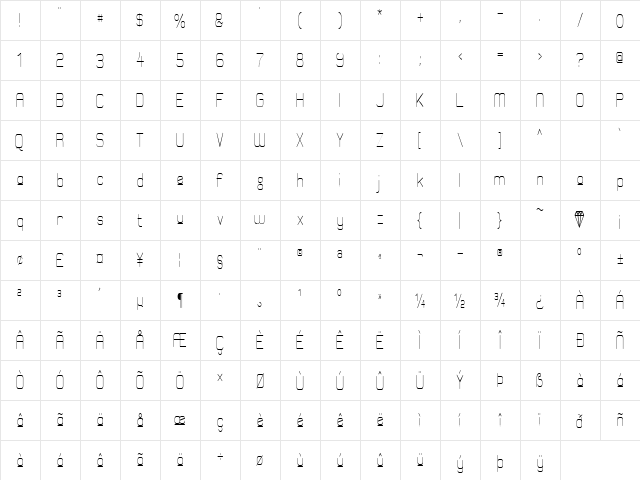
Elgethy Est Upper Condensed Regular
Design Context for Elgethy Est Upper Condensed Typeface
Elgethy Est Upper Condensed is a composed and adaptable typeface that performs quietly and consistently across a wide range of design contexts. The condensed width makes it efficient for tight spaces without sacrificing legibility.